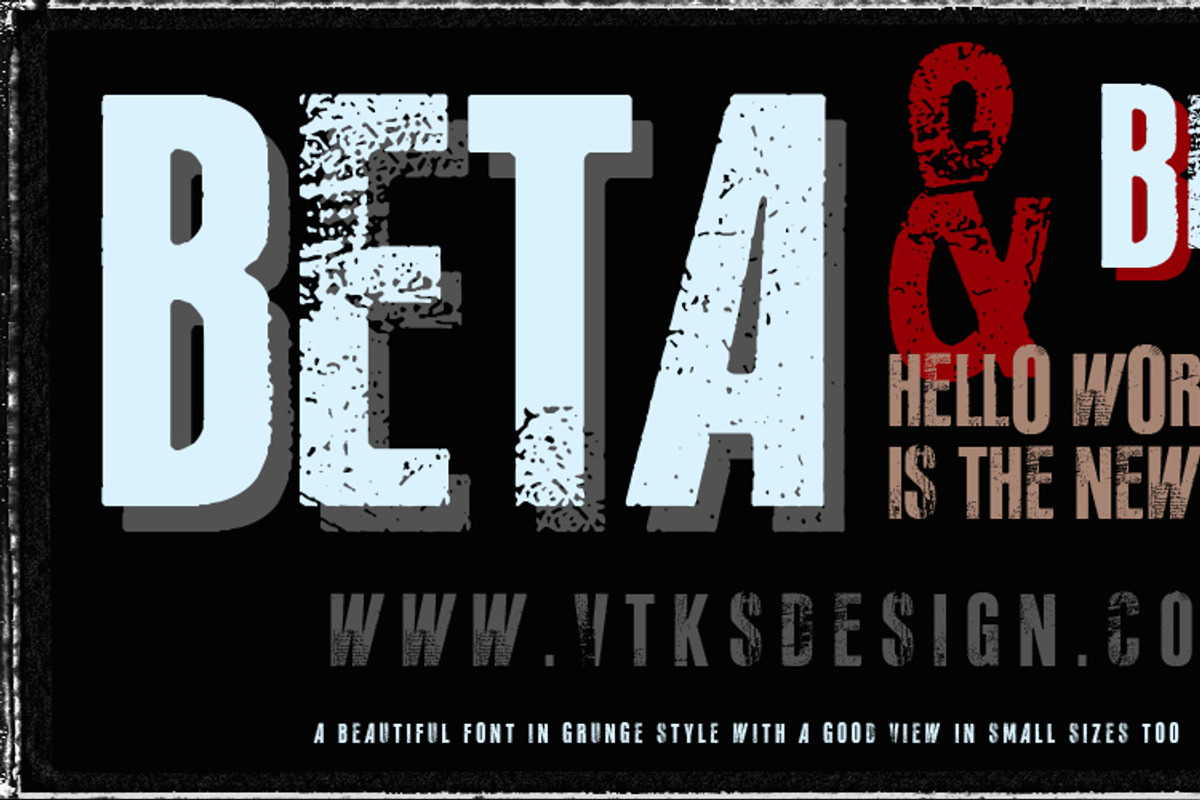
Beta ( new Vtks font )
Beta ( new Vtks font ) by vtks design is a font selected for branding, posters, packaging, typography.
Why Beta ( new Vtks font ) is worth a look
Beta ( new Vtks font ) by vtks design fits naturally into Branding, posters, packaging, typography.